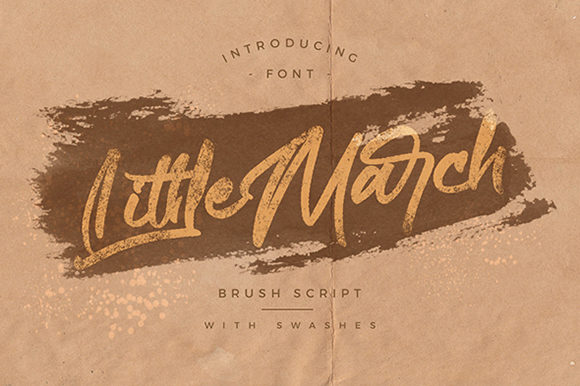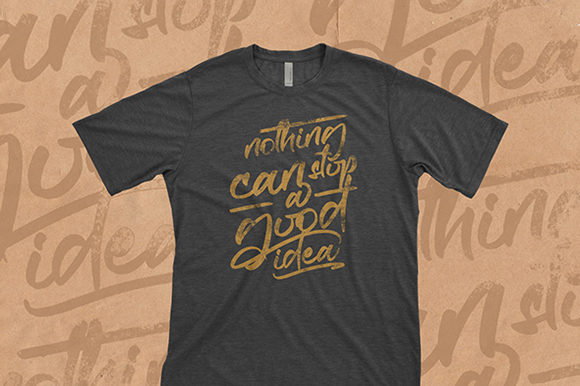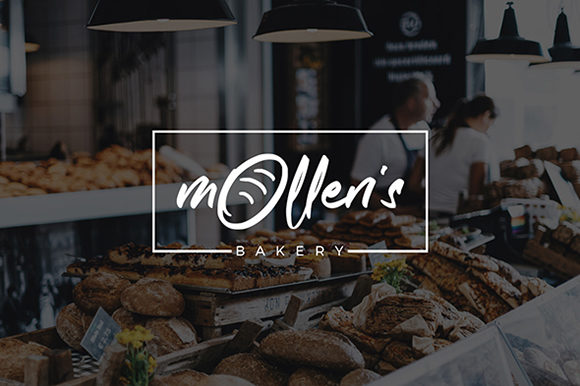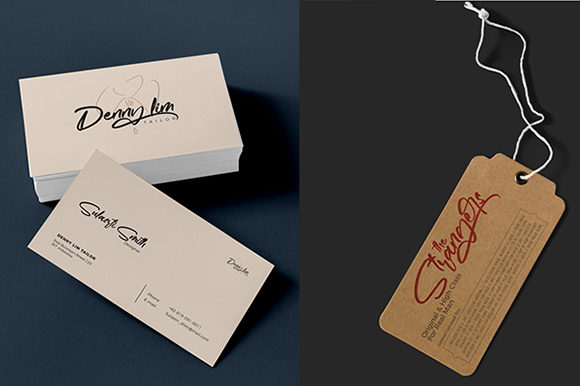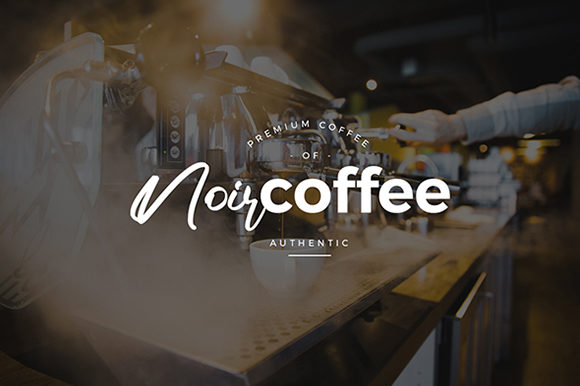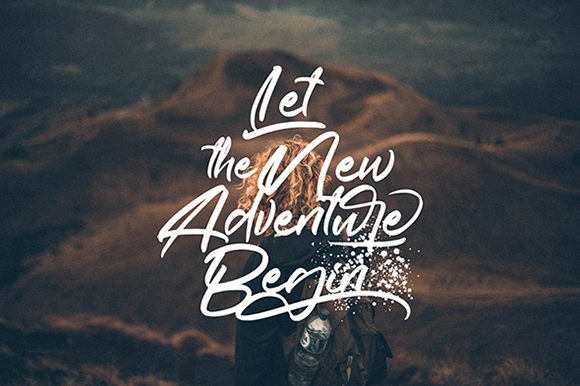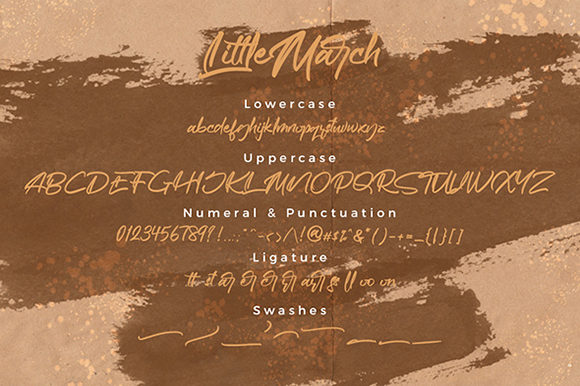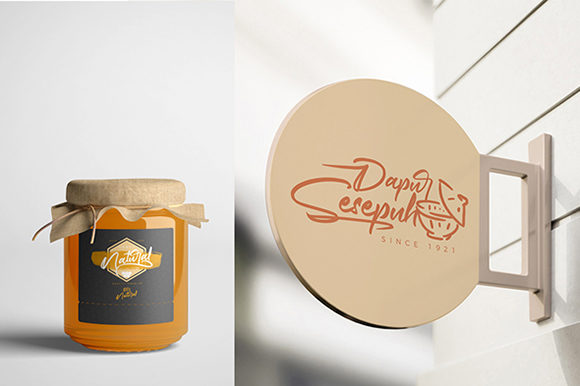
Littlemarch Font
About Littlemarch Font
Littlemarch is a sweet and flowing handwritten font, created with the help of an outstanding brush pen. Fall in love with this font and bring your projects to the highest levels!